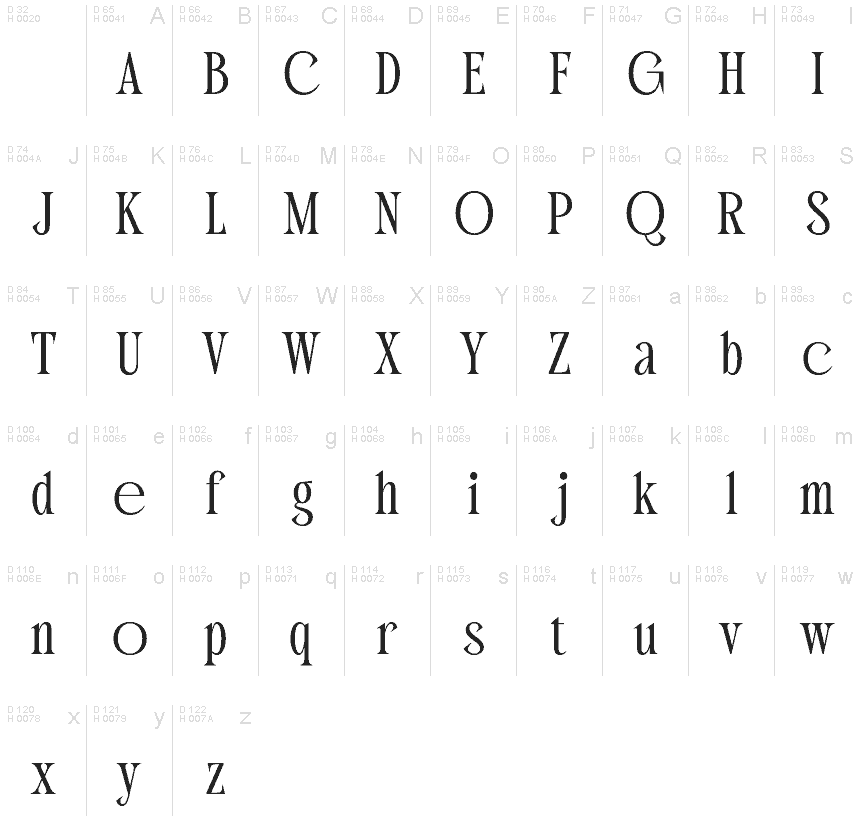
CS Philea Regular Demo
CS Philea font, designed by Craft Supply Co., is a condensed serif typeface with a sophisticated, professional, and elegant style. Imbued with classical influence in a more modern form, it boasts a distinct refined aesthetic suitable for high-level corporate design and creative projects of all kinds.
This free serif font will work beautifully on posters, packaging designs, and books as well as personal branding work on business cards or even signatures. Integrating it into articles is all it takes to add stylish touches to your text to stun your readers from the very first read.